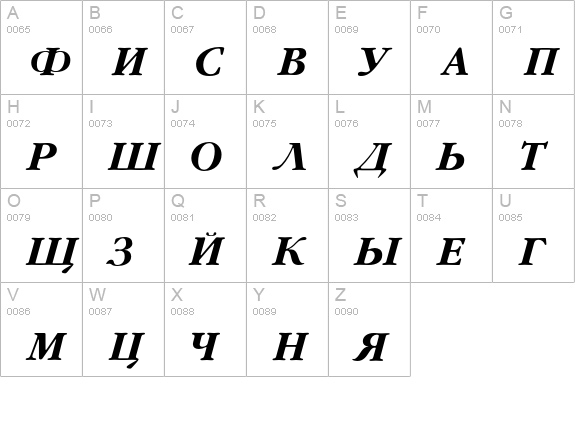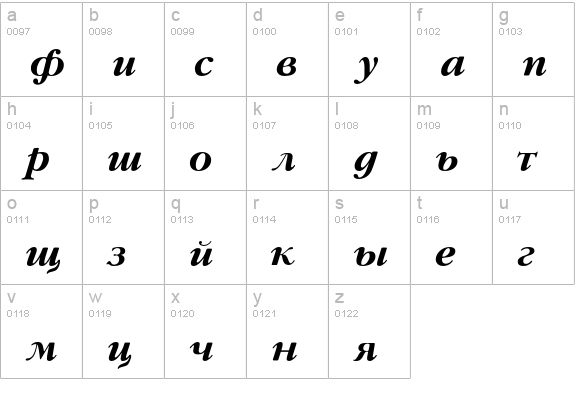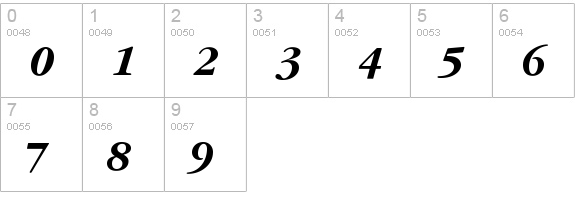
GaramondFLFCyrillic-BolIta Font Details
GaramondFLFCyrillic-BolIta is a stunning and versatile font that strikes the perfect balance between elegance and readability. Its bold italic style adds a touch of sophistication to any design project, making it ideal for headings, quotes, and other prominent text elements. The Cyrillic characters in this font are beautifully crafted, adding a unique and artistic touch to your content. What sets GaramondFLFCyrillic-BolIta apart is that it is available for free download at FontsMarket.com. This means that you can easily access this high-quality font without any cost, making it a valuable addition to your font collection. Whether you're working on a personal project or a professional design, GaramondFLFCyrillic-BolIta is a fantastic choice that will elevate your typography game.